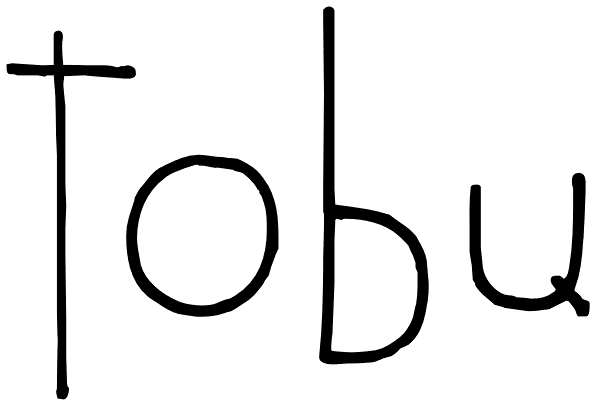
Tobu
Tobu means 'to jump' in Japanese. I came across a haiku by Matsuo Bashô wich reads: The old pond… a frog jumps in… the sound of water (Furu ike ya… kawazu tobikomu… mizu no oto). The font is named Tobu because of its jumpy character: it doesn't have...